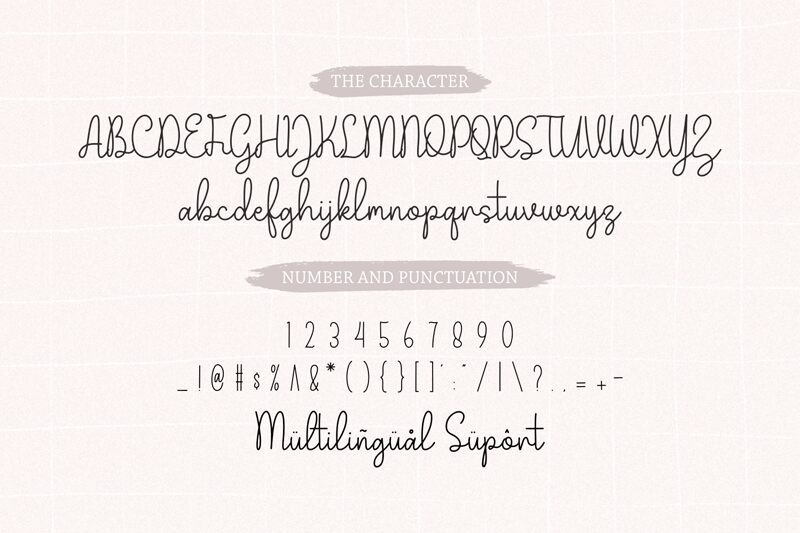
Grey Joy, crafted by Forberas Club, embodies the charm of personal touch with its handwritten style that whispers intimacy and warmth. This font dances between casual elegance and playful sophistication, making each character appear as though it was thoughtfully inked by a delicate hand. Its graceful strokes convey a sense of lightness, perfect for designs that aim to be both inviting and refined.
In the realm of design, Grey Joy's airy allure makes it an excellent choice for invitations, heartfelt greetings, and branding endeavors that benefit from a humanized approach. It also shines in editorial contexts where a gentle, approachable aesthetic is desired. The personality of Grey Joy adds a bespoke quality to any project it graces.